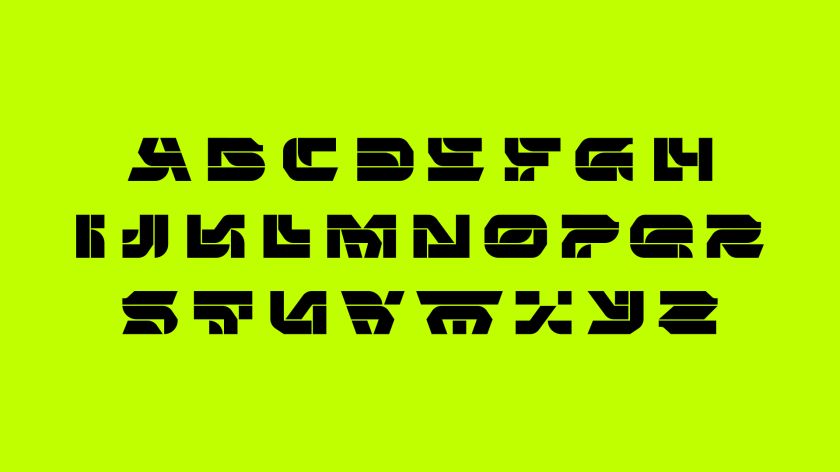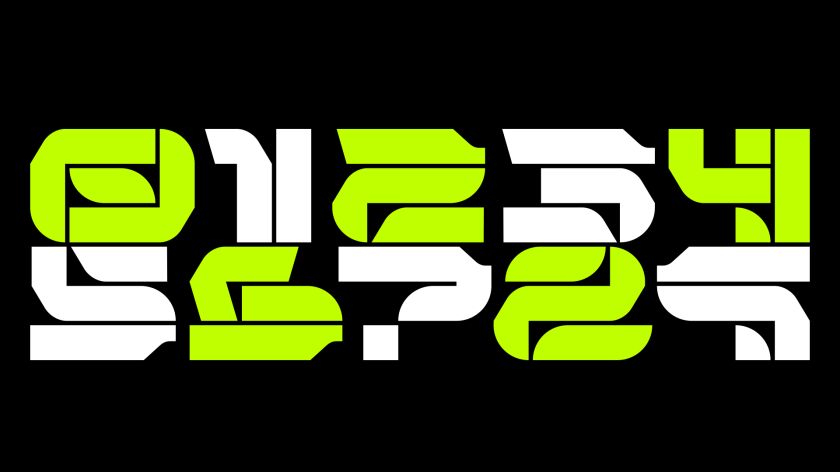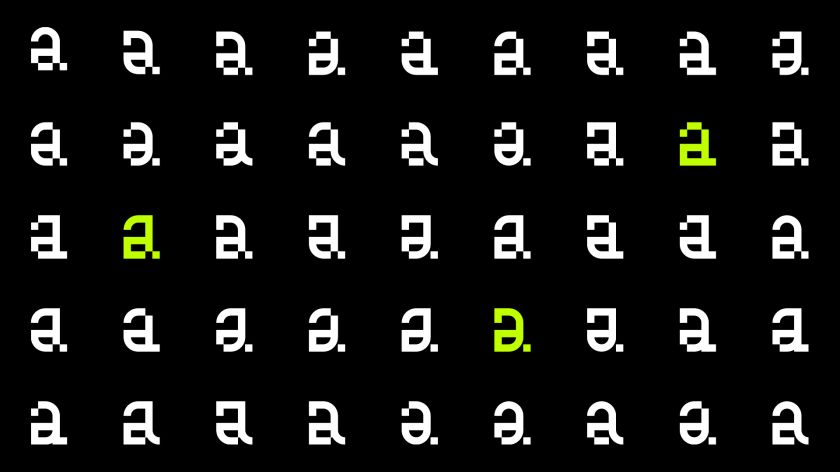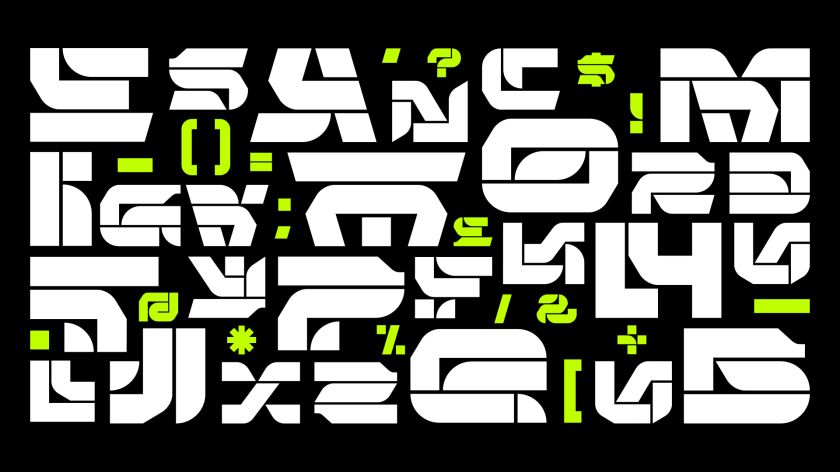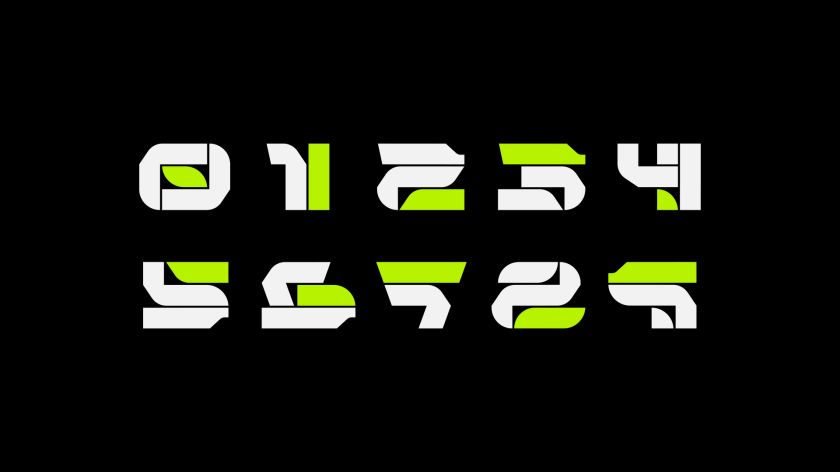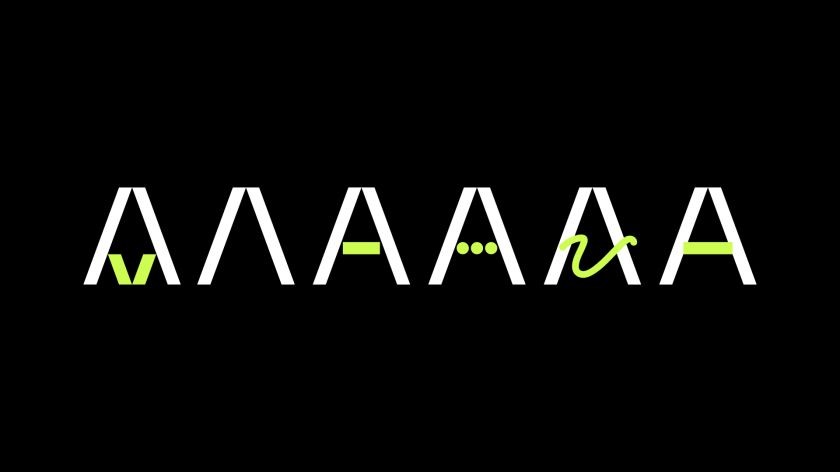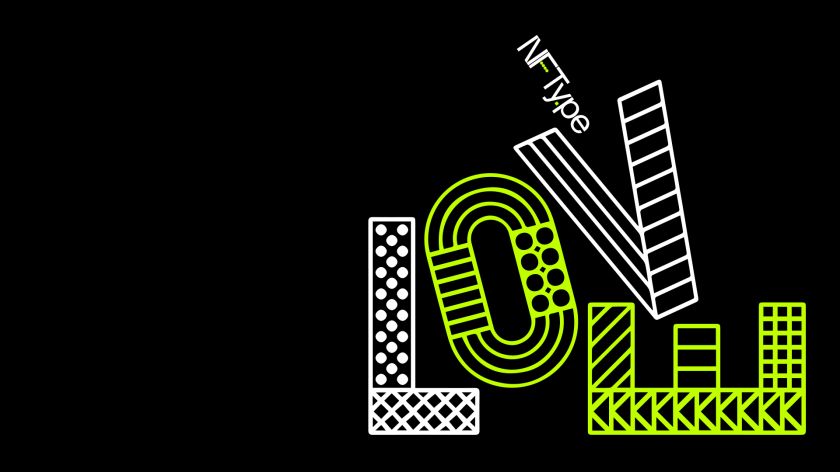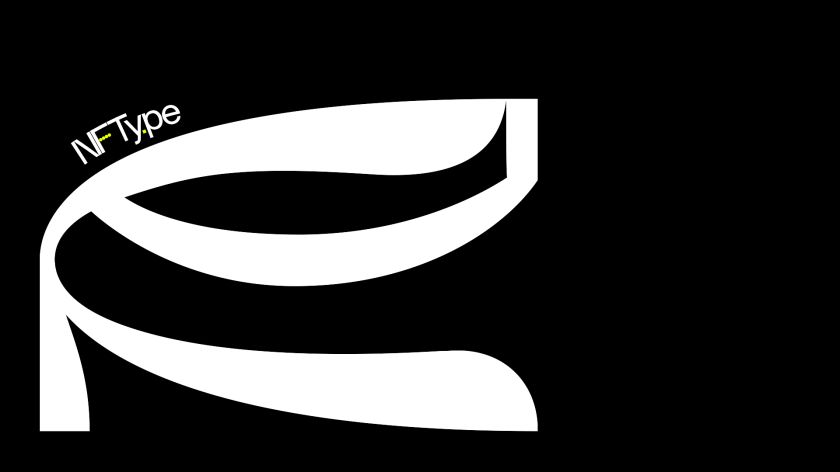
Craig Ward has revolutionised the creation of custom fonts with NFTy.pe
World-renowned design director and typographer Craig Ward is shaking up the way fonts are made with NFTy.pe, a revolutionary new platform that has launched today and represents a “top-to-bottom rethink” of the type industry.
As far as Craig Ward is concerned, the type industry has fallen asleep at the wheel. In his eyes, type has become almost completely commoditised. With possibly millions of fonts out there on various sites, finding the one you’re after – or a similar enough variant – has become an easy task. This means that ownership has become poorly policed, if not non-existent.
“The medium of delivery has been in constant evolution, but the ownership model and the one-directional process of type creation has remained stagnant,” Craig tells Creative Boom. “NFType really flips the script on all of that and attempts to reimagine the industry from creation to sale.”
In a nutshell, NFTy.pe uses a combination of modular type design and generative scripts to create fonts with unique visual attributes. The upshot is that no two character sets are exactly the same. And thanks to smart contracts and embedded metadata, ownership is quick and easy to verify.
By adopting this approach, NFTy.pe hopes to solve the problem that designers receive no commission for proposing licensed fonts to their clients. Because each NFTy.pe font can only have one legal owner at a time, whether an individual or a business entity, designers can now sell their work directly to the client, with a percentage of that sale going directly to the studio.
Additionally, there will be no need to deal with crypto as all initial sales will be conducted with fiat currencies such as pounds, dollars and euros. Fonts will be available for one month only in a fixed edition of 1,000, and after that, the only way to acquire them will be through the secondary market. And to allay any environmental concerns, Craig has gone to great lengths to ensure that the whole project will be carbon negative by offsetting more CO2 than it produces.
It’s an approach to type design which appears to have hit the ground running, as creatives and studios which have already signed up include Sawdust, Cihan Tamti, Matt Willey, Stefan Hürlemann and Wayne Fearley.
Inspired while creating a brand refresh for Zoom last year, Craig came up with the idea for NFTy.pe while tackling the familiar opponent of designers: time. “It’s obviously a major variable in type design, particularly for an org that’s present in every territory and required multi-script support,” says Craig. “Fonts with that level of support can take years to develop, and they only had a few months.
“Around the same time, I was finishing up a pandemic-era Lego project that I started with my kids, exploring modularity in type design, how many parts does it take to make a typeface, that kind of thing.
“If you’re familiar with some of my previous projects, I’ve always been fascinated by generative processes – both organic/human-made and code-based – and I had a bit of a eureka moment where I thought, could I combine modular type design with generative scripts to expedite the creation of unique fonts?
“The more I explored the concept, the more ideas it suggested, so I reached out to the dev team at Glyphs to help me work on a proof of concept font, and it went from there.”
Rebuilding a design sector from the ground up is no easy task, though. “To begin with, we’re bringing scarcity to an industry that has never had any kind of a cap on it,” Craig reveals. “Each NFTypeface will be released in an edition of 1,000 unique versions available for one month only. Any that aren’t sold will be destroyed, and the font will only then be available on the secondary market.
“The generative aspect means no two designers will ever have the same version of a typeface, so that adds a lot of different questions about the role of the type designer here. Traditionally type designers present potential buyers with a finished font, but now it becomes more of an open-ended conversation where there are multiple versions of the font, each with subtle but noticeable differences.
“Then additionally, the new ownership model means designers will actually own that version of that particular font and, as such, if a client wishes to purchase it, they’ll do so from them directly. This allows designers to be compensated for their role of the sale of type to clients with the originating studio receiving a small percentage of that secondary sale and subsequent sales.”
As Craig points out, according to Monotype’s Purchasing Habits survey from 2019, 42% of purchased fonts are never used, and there is no way for creatives to recoup the expenditure. “Instead, they collect digital dust in folders on your hard drive. If you don’t have a use for an NFTypeface, you’re able to put it back out onto the secondary market and sell it, so that also, I hope, eases the decision-making of whether or not to shell out for this or that new font.”